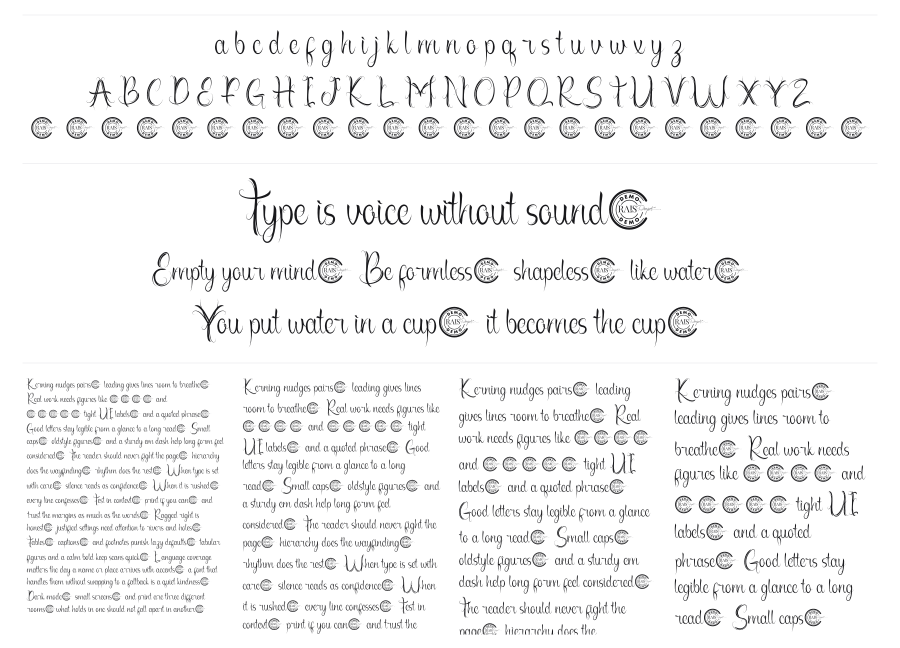
Greenwings
Greenwings is a flowing casual script from RaisProject with generous swash details and a lively, bouncy baseline. The curling descenders and looping terminals give it an organic, handcrafted warmth that sits somewhere between modern calligraphy and everyday handwriting. It works at headline and display sizes where its personality has room to breathe.